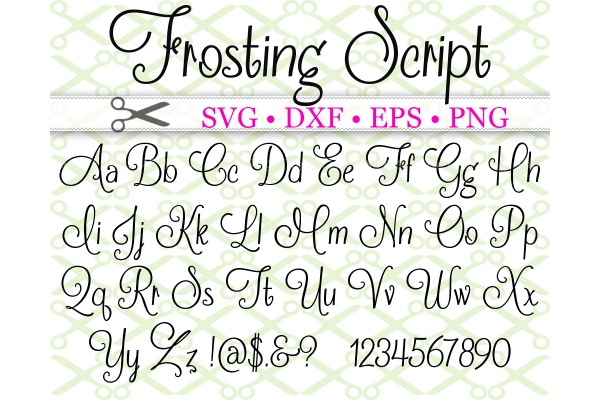
FROSTING SCRIPT FONT SVG FILES, In File Formats SVG, DXF, EPS & PNG. Upper & lower case letters, numbers & symbols as shown in ad picture. This is a cute whimsical font!